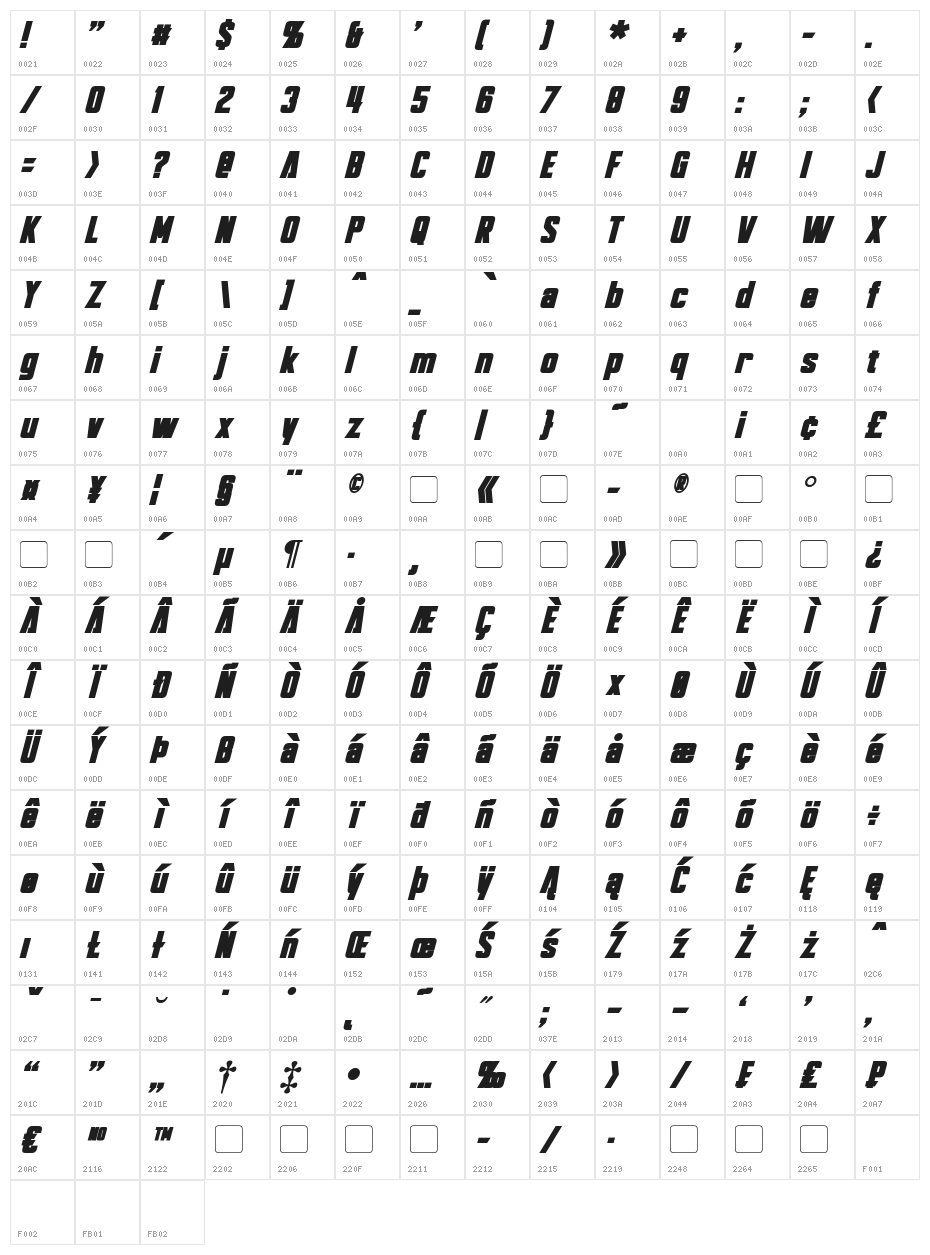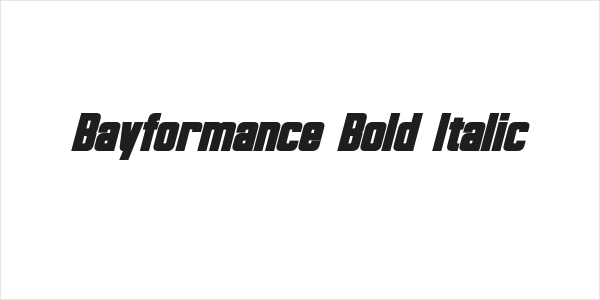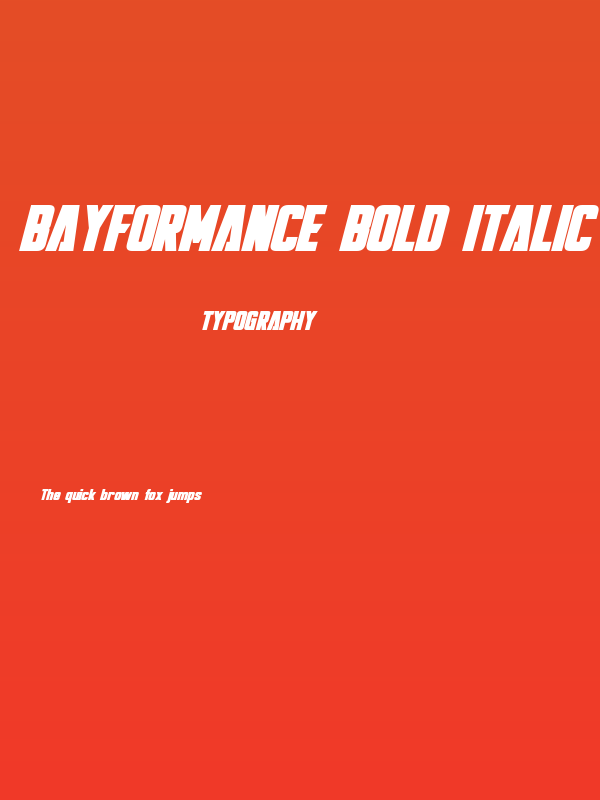
Bayformance Bold Italic Font
Bayformance Bold Italic Description
This font exhibits a bold and italicized style with a strong, impactful presence. The characters are designed with a forward-leaning slant, enhancing the dynamic and energetic feel. The strokes are thick and consistent, providing a robust and solid appearance. The uppercase and lowercase letters maintain a uniform width, contributing to a cohesive look. The numbers and special characters follow the same bold and italicized design, ensuring consistency across all elements. The overall style is modern and assertive, making it suitable for projects that require a strong visual impact.